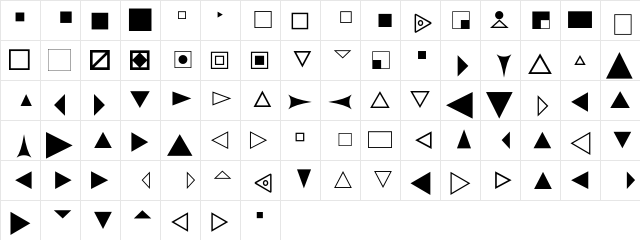
GeneralSymbols P04
Design Context for GeneralSymbols Typeface
GeneralSymbols takes a measured approach to typography — its balanced proportions and neutral character make it a reliable workhorse for both digital and print work.